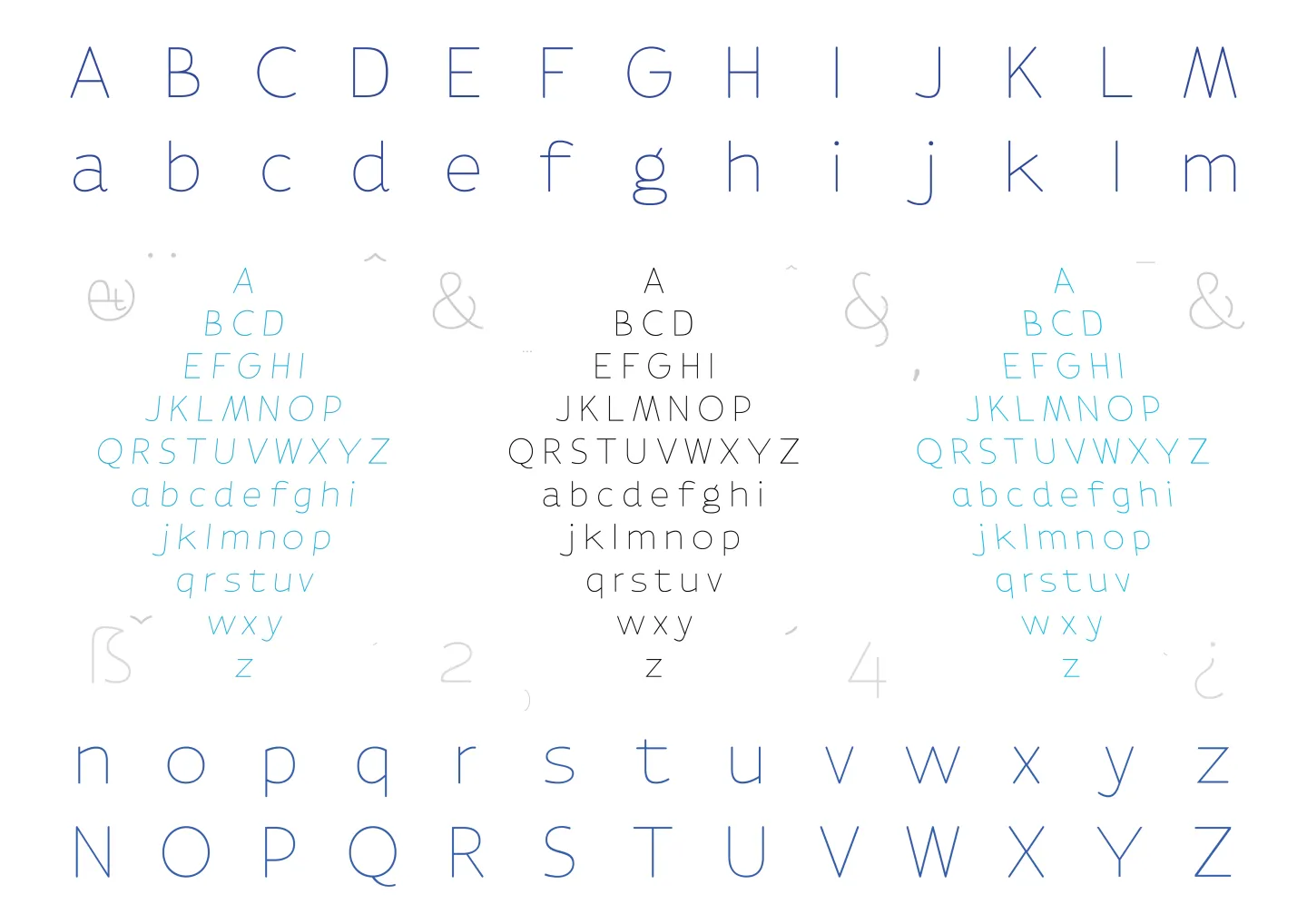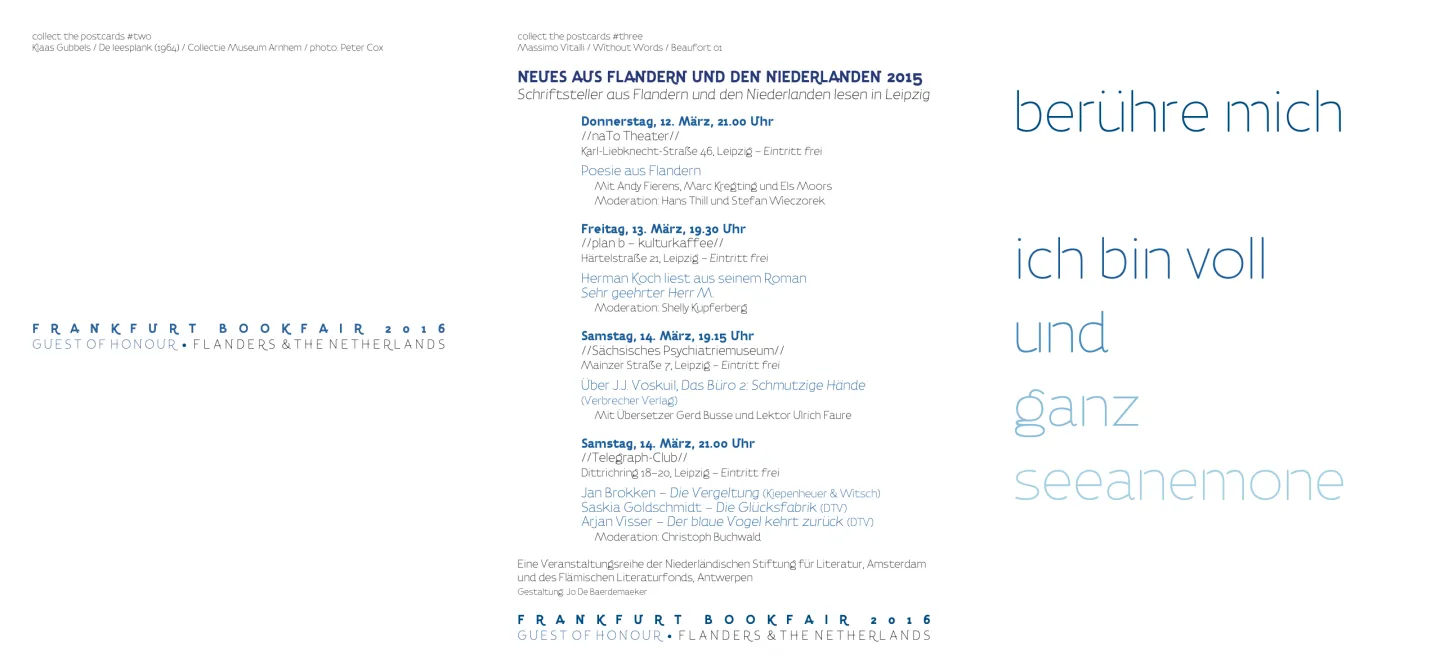
ST Tenzin
Tenzin is a thin, light-weighted sans serif font that found its origin as the typeface for the visual identity of Flanders and The Netherlands joint guests of honour presentation at the Frankfurt Book Fair (Frankfurter Buchmesse) in 2016.
“From the start, artistic director Bart Moeyaert emphasized a need to organize the branding of the project around three themes shared between Flanders and the Netherlands (and Germany): a common history, shared dynamism, and the North Sea.
As it turns out, creative nods to the partnership between Flanders and the Netherlands are omnipresent in the project’s branding. Take the colour scheme: the blues in the logo, which, Moeyaert (2015) explains, represent the blues of the Westerschelde, the mouth of the River Scheldt, where the two territories of the Netherlands and Flanders flow together. Complementing the blues is a yellow/grey, the colour of North Sea beach sand. The notion of fluidity between the two partners is further activated in a typeface designed by Jo De Baerdemaeker especially for the fair, whose letter structure is inspired by the famous typographical collections of Plantin-Moretus of Antwerp, Johannes Enschedé & Zonen of Haarlem, and Lettergieterij Amsterdam. A large collection of ligatures has been added so that each letter runs into the next, illustrating again the ‘dynamic flow’ between the Netherlands and Flanders.” – from “This Is What We Share. Co-branding Dutch Literature at the 2016 Frankfurt Book Fair” by Jack McMartin
Tenzin is part of a unique type system with 6 different weights that De Baerdemaeker conceptualized, which includes italic and reverse italic styles to represent the tides and other natural elements of the North Sea. The design of the letterforms is inspired on the analysis of representative printing types of the type tradition in Flanders and The Netherlands. Jo also decided to implement the features of a typewriter typeface, to add a respectful wink to the Flemish and Dutch authors of past years. The font family was used throughout all the communication and branding publications of the Frankfurter Book Fair .
Tenzin is currently being expanded with glyphs for the Tibetan writing system. ◊